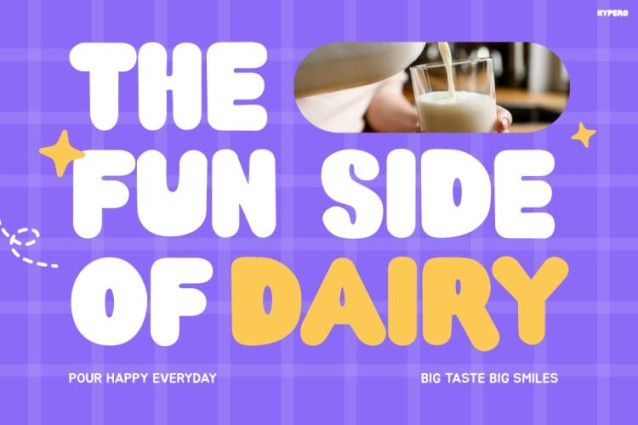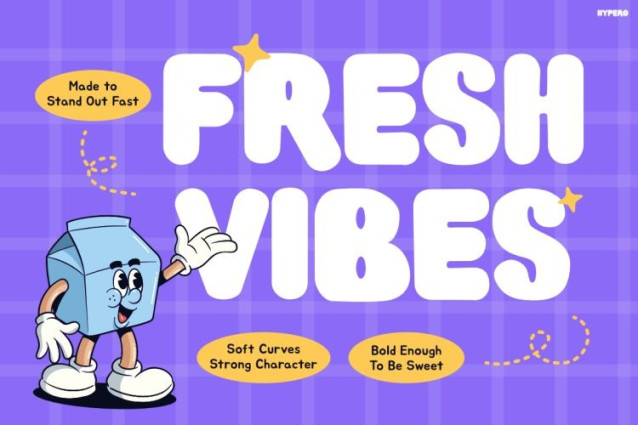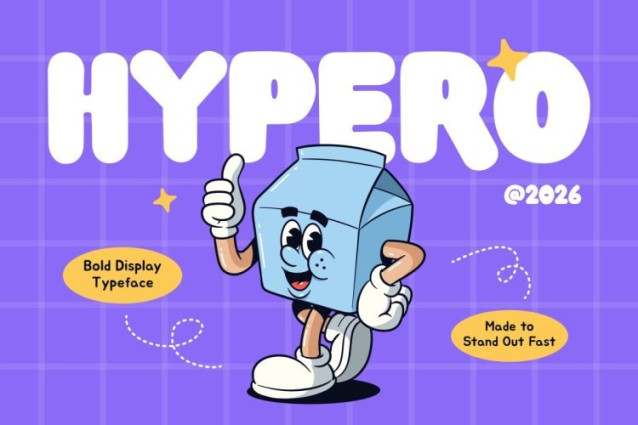
Hypero Font
Hypero Font is a bold bubble display font designed to bring fun, happiness, and energetic vibes into every project. Inspired by retro cartoons, snack packaging, playful mascots, and cheerful branding, this font instantly creates a lively and eye-catching visual impact. Moreover, Hypero combines chunky rounded letterforms with soft bubbly curves, making every word feel cute, bold, and full of personality. Unlike ordinary kids fonts, Hypero delivers a strong playful aesthetic while still maintaining excellent readability. As a result, this font works perfectly for branding, packaging, posters, social media graphics, and product promotions. In addition, the thick cartoon-inspired shapes help designs feel more expressive, modern, and visually memorable. Therefore, Hypero becomes the perfect choice for projects that want cheerful energy mixed with bold creative style.
Why Kids Font Hypero Stands Out
Kids Font Hypero blends retro fun aesthetics with modern playful typography. Furthermore, the oversized bubble-style characters make headlines look powerful, friendly, and impossible to ignore. Thanks to its rounded structure and chunky appearance, this font creates a happy and welcoming atmosphere that instantly attracts attention. At the same time, the clean design keeps every word easy to read across digital and print media. Besides that, Hypero includes uppercase, lowercase, numbers, and punctuation, so designers can create flexible and dynamic typography layouts effortlessly. Consequently, this font works beautifully for food branding, kids packaging, toy promotions, social media content, and colorful advertising campaigns.
Perfect For Who?
Kids Font Hypero is ideal for graphic designers, content creators, food brands, café owners, toy businesses, and creative entrepreneurs who want typography filled with joy and playful personality.